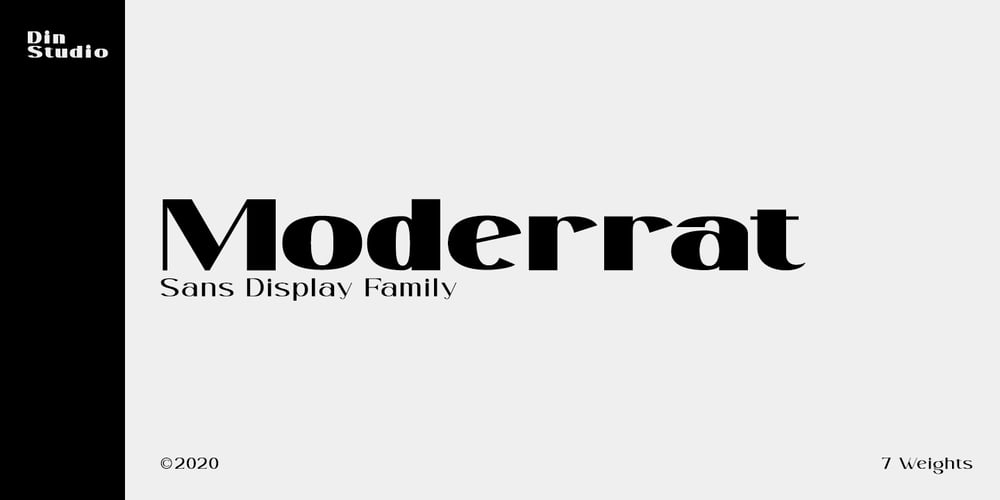
Moderrat
Moderrat font
Moderrat Font Family was designed by Donis Miftahudin and published by Din Studio. Moderrat contains 7 styles and family package options. Moderrat Sans Serif Font Family. Features with 7 fonts. The Modern design of typeface will make your design more powerful. The font is suitable for any project like web, signage, corporate as well as for editorial design and many others.Featured : Multilingual Support PUA encoded